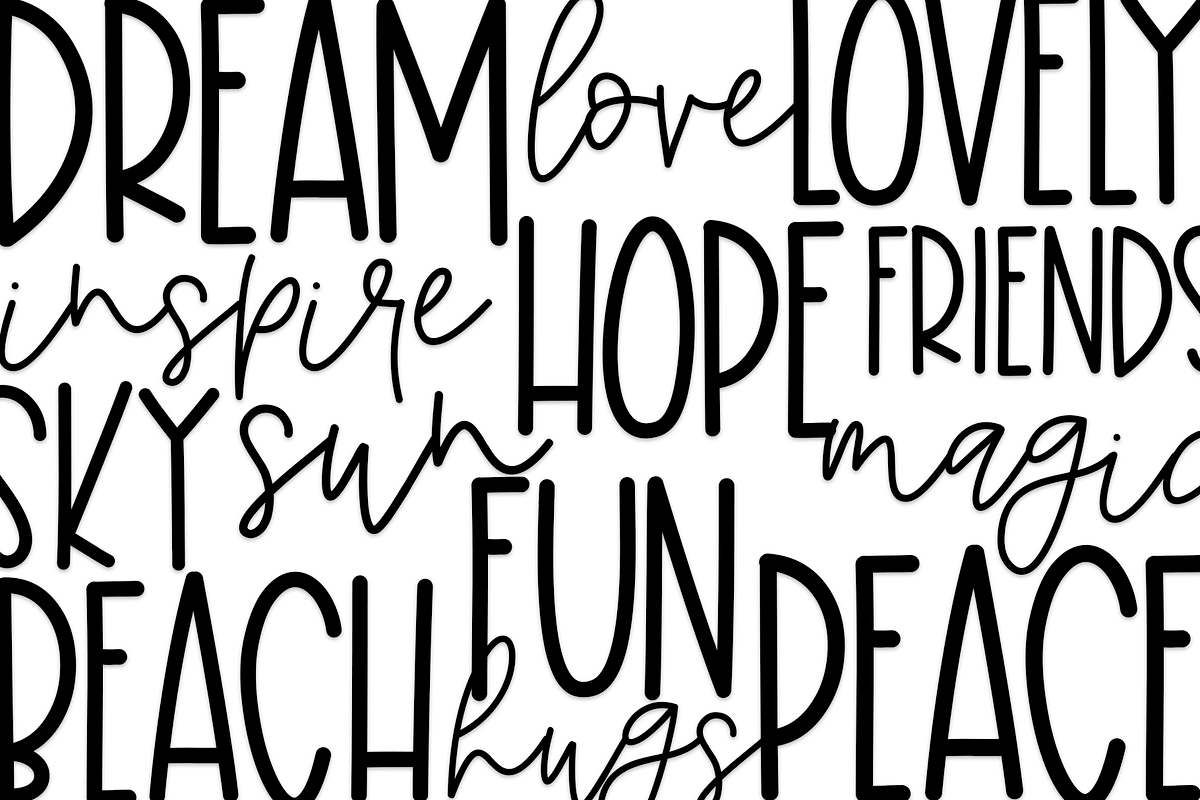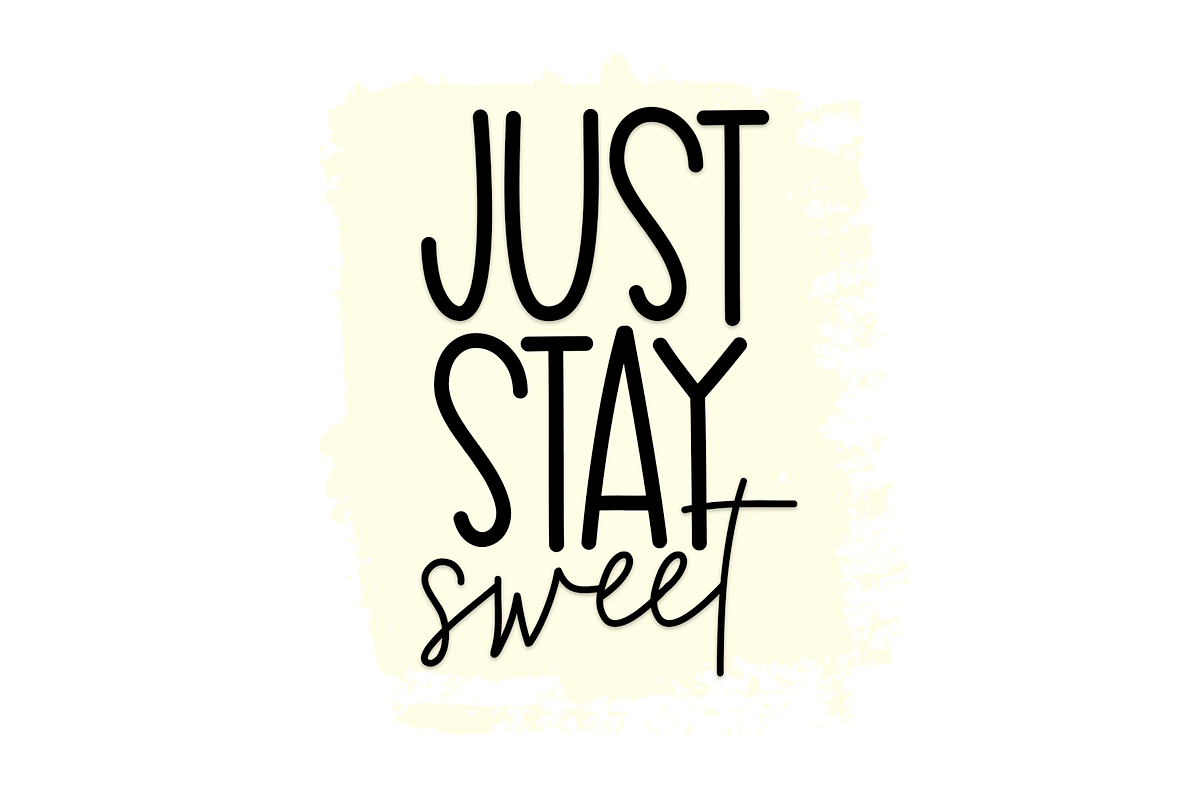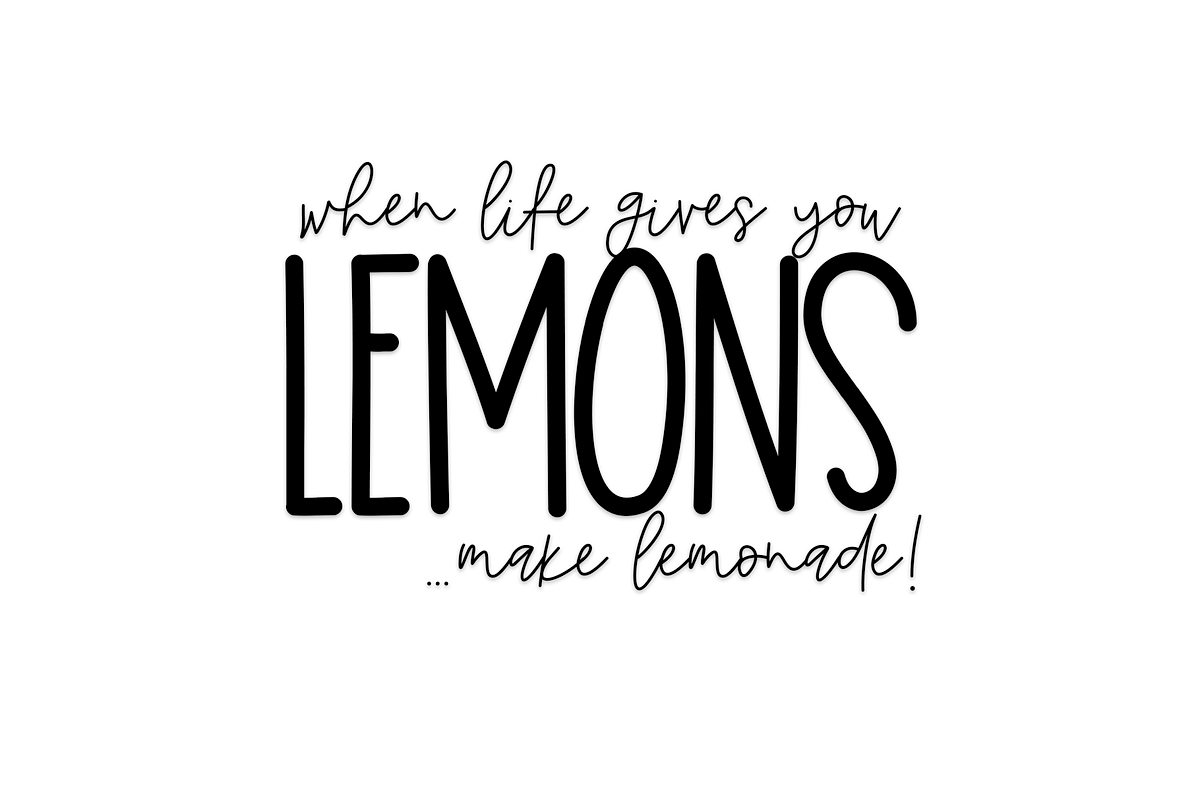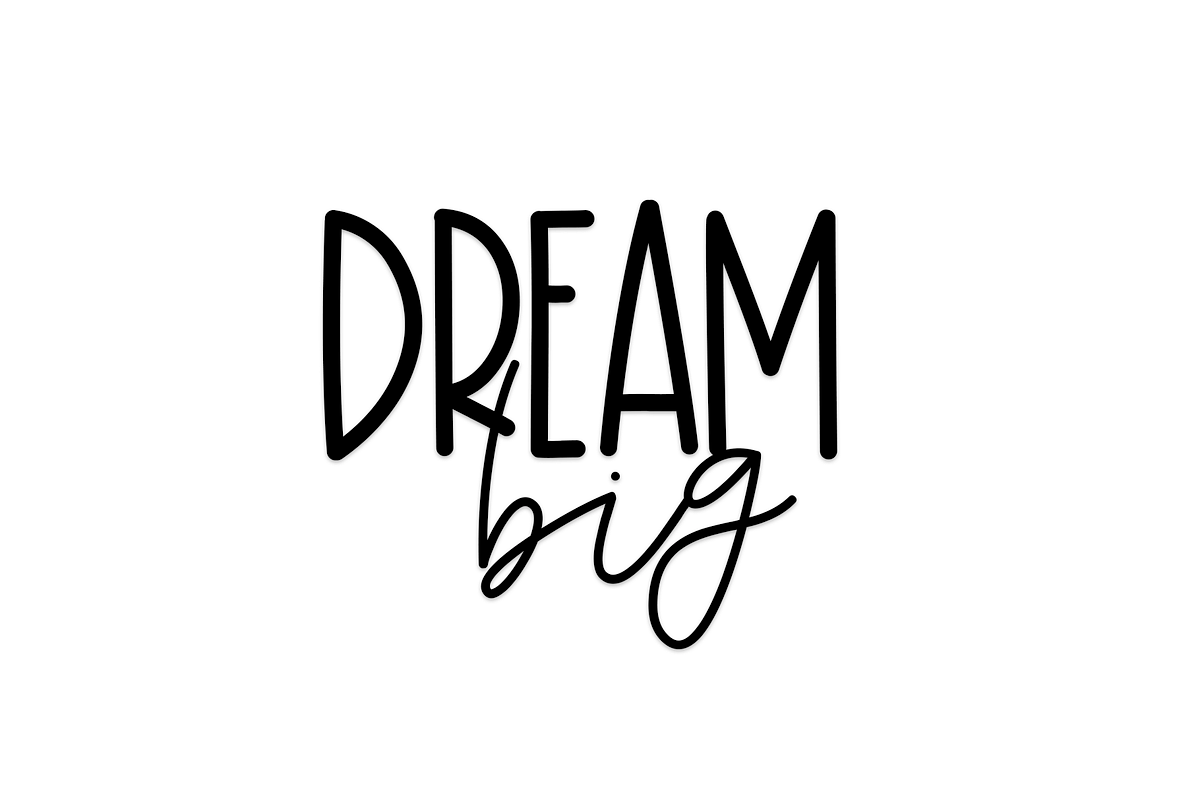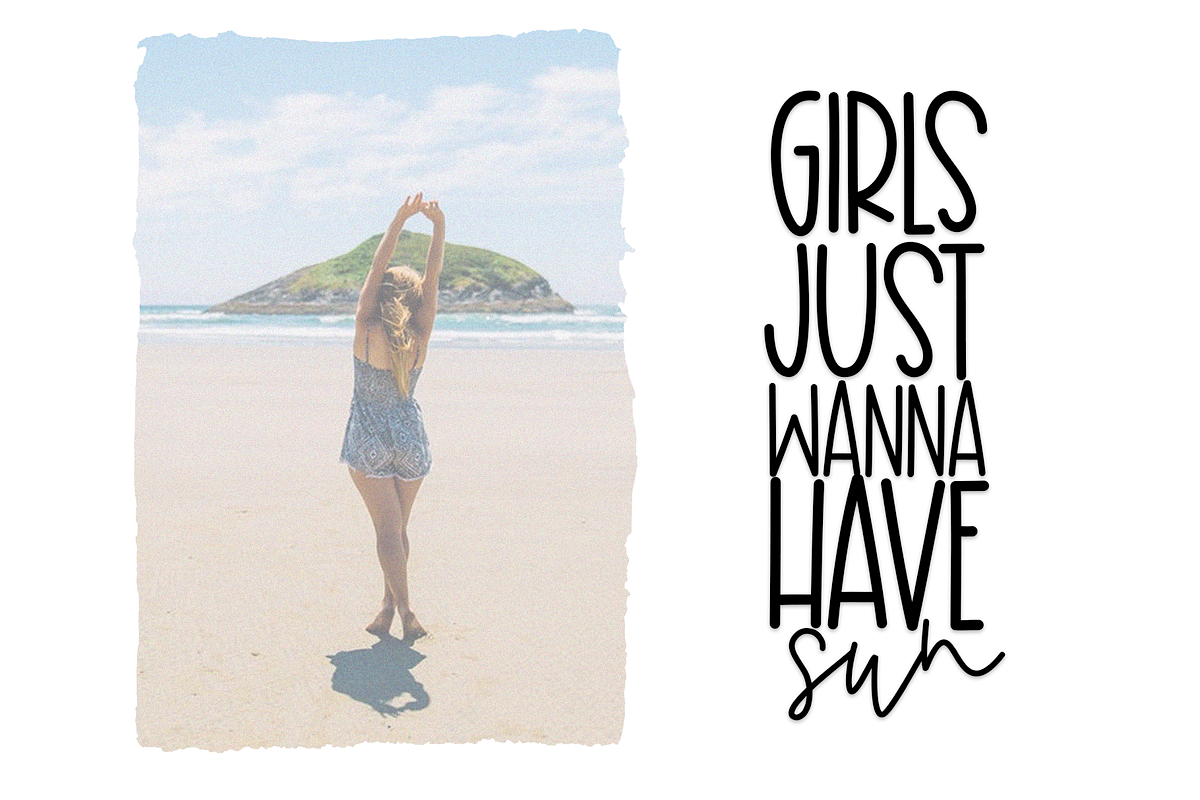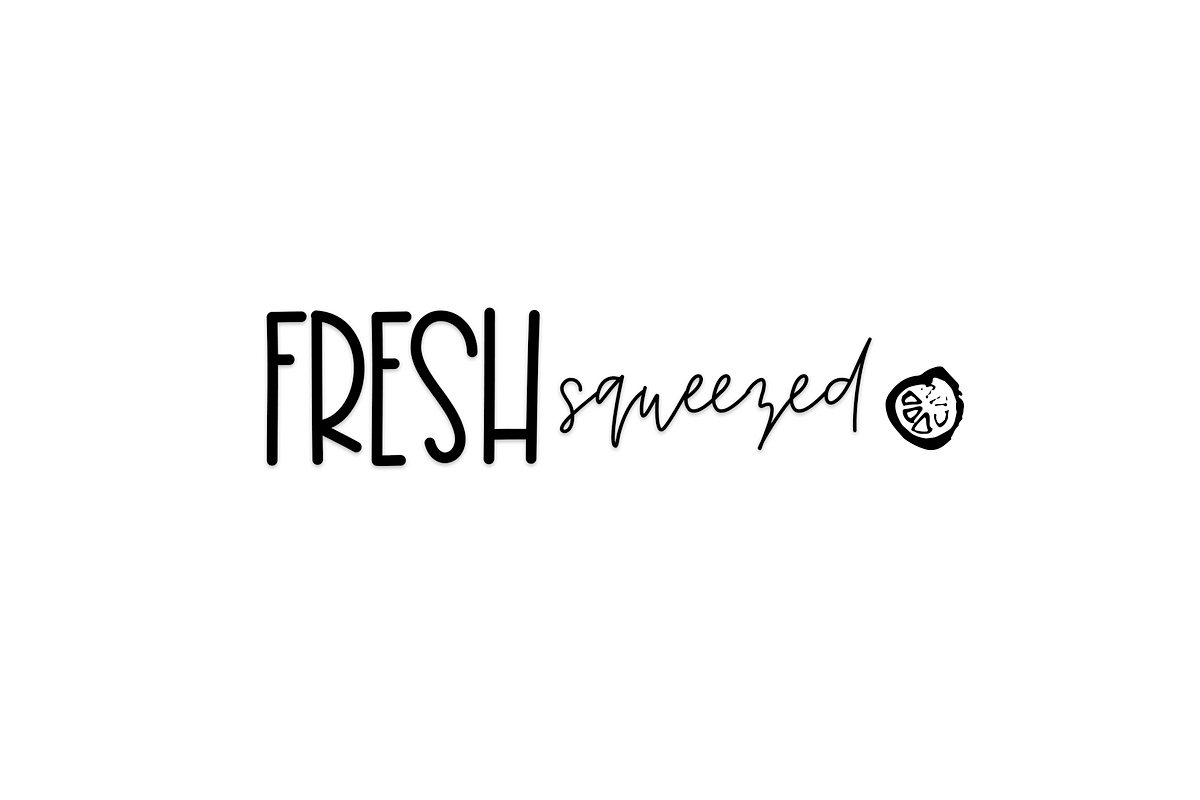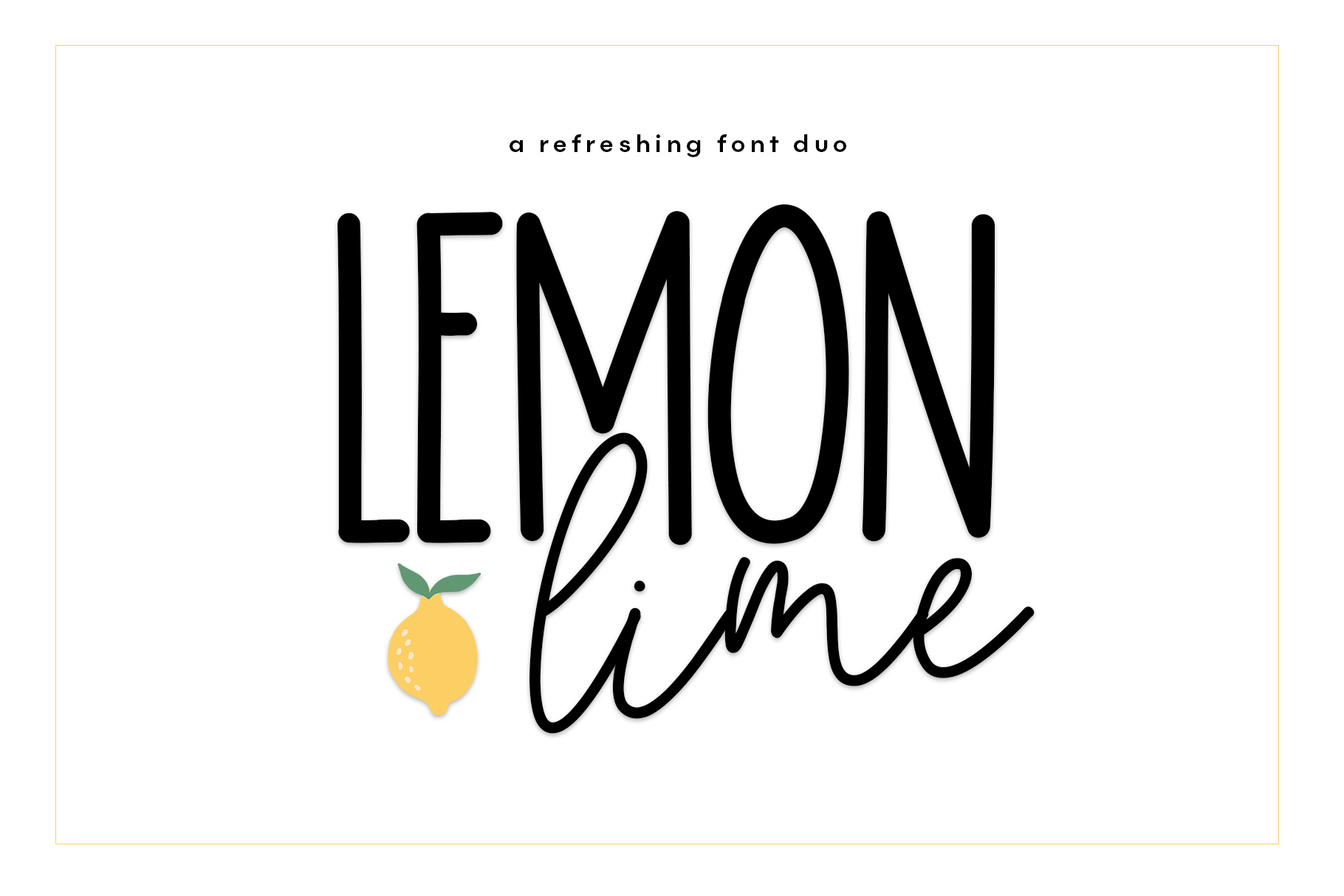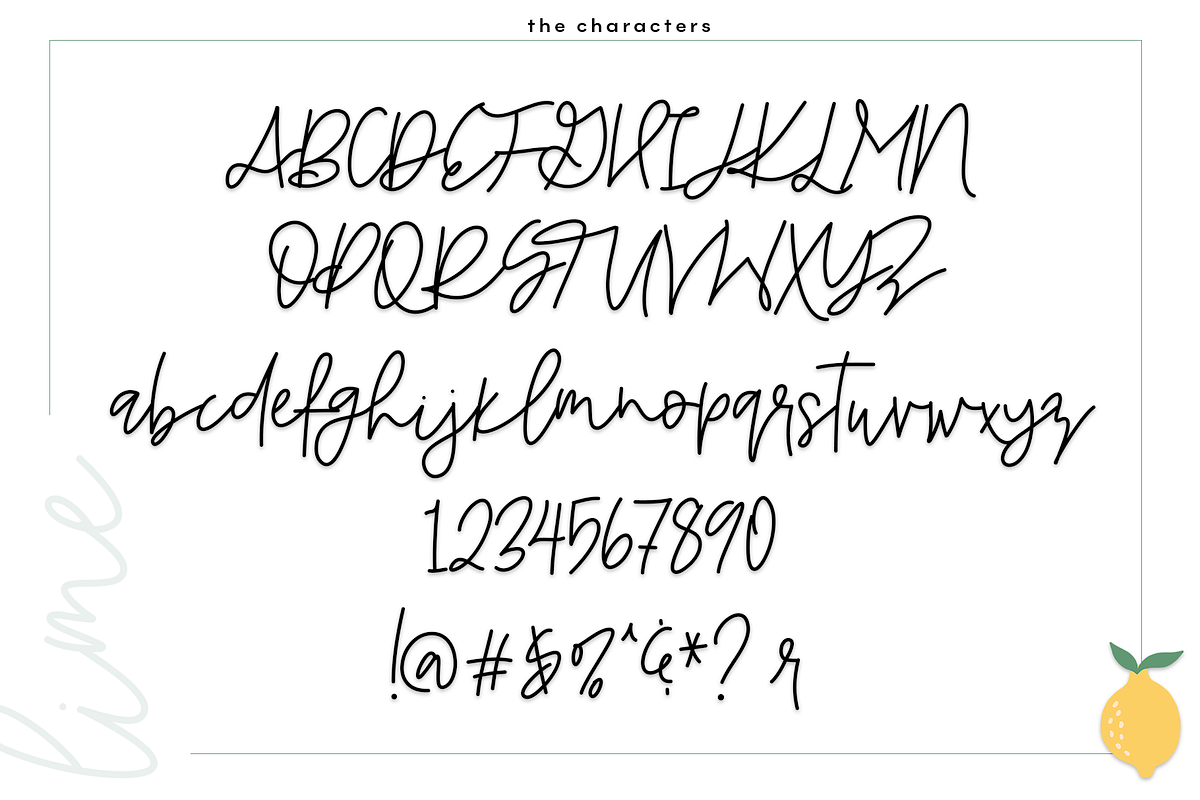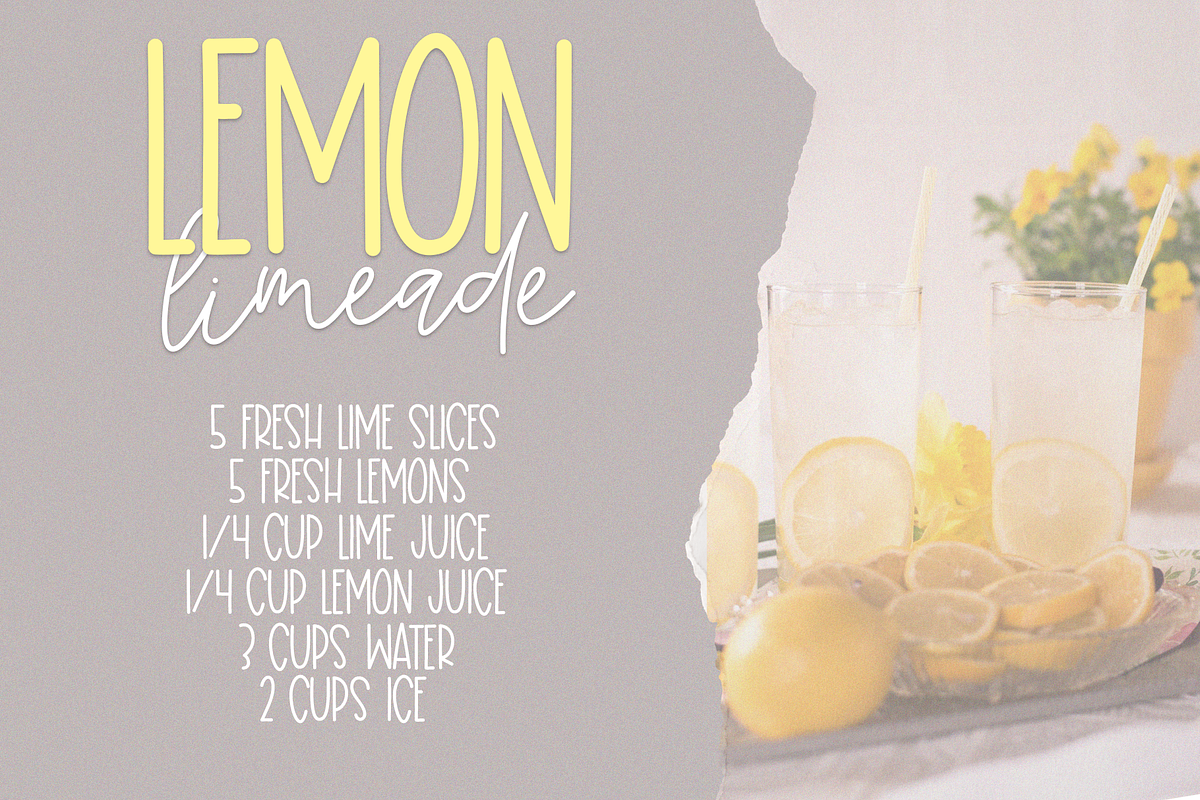
Lemon Lime - A Handwritten Font Duo
Lemon Lime is a refreshing font duo.
- *Lemon - a solid & bold, quirky print font. [TTF & OTF]
- *Lime - a fun script font. [TTF & OTF]
This duo is perfect for quotes, headings, blogs, logos, brandings, invitations and more!